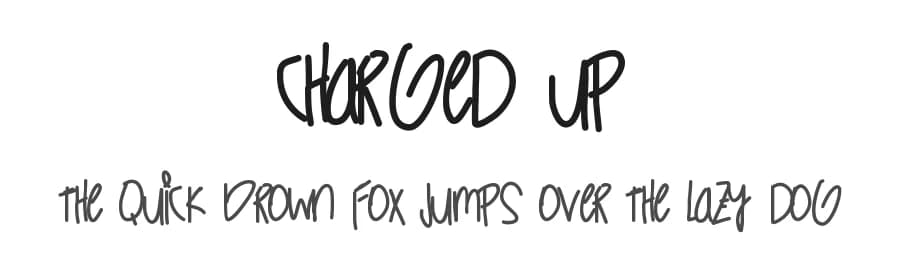
About Charged Up Font
Charged Up is a script & handwritten font designed by Des Gomez. It includes 101 glyphs, a medium weight, TTF (TrueType) format, and 107 languages. Charged Up is free to download; check the license details on this page before commercial use. Script & handwritten fonts like Charged Up work best for wedding invitations, greeting cards, signatures, and elegant branding.
Charged Up Font is a script font that shines as a display or heading face. Pair it with a clean sans-serif or serif font for body text β the contrast creates a clear hierarchy while the two styles stay balanced and easy to read.
Charged Up Font
by Des Gomez